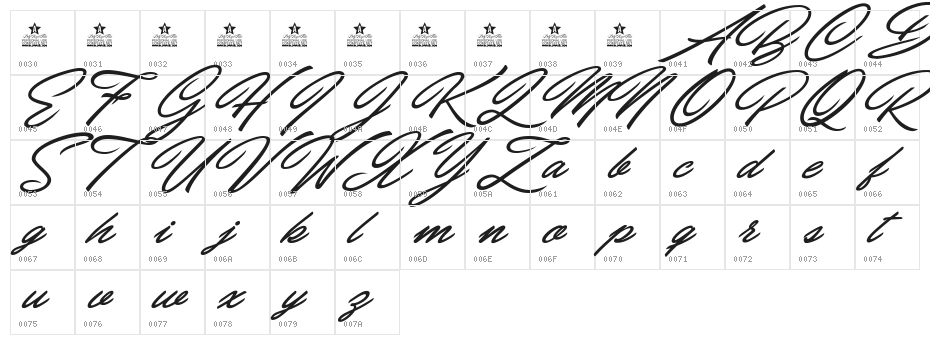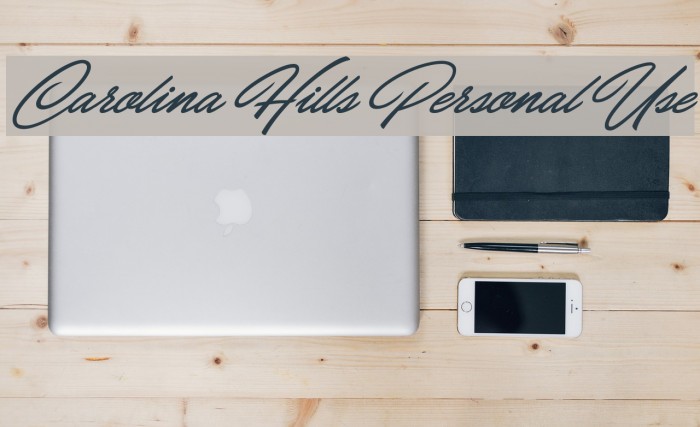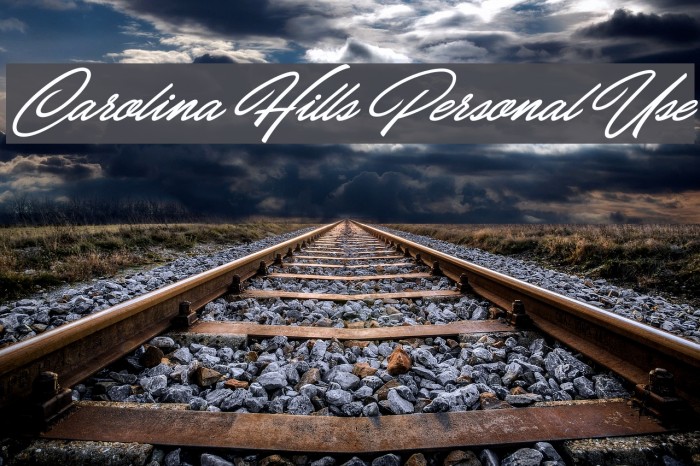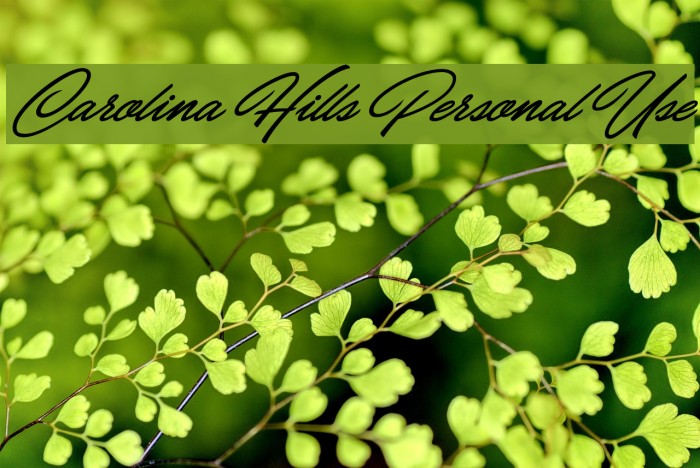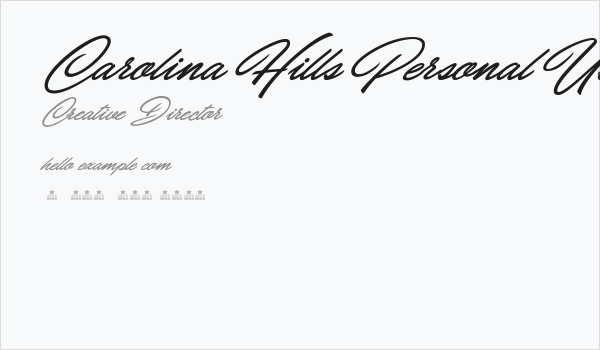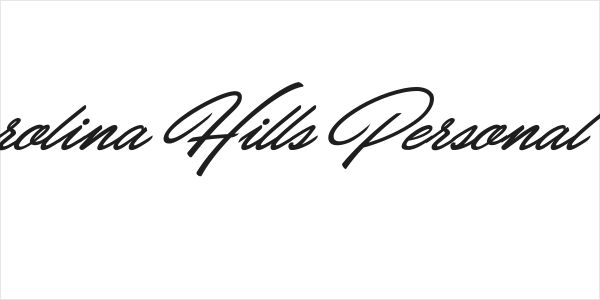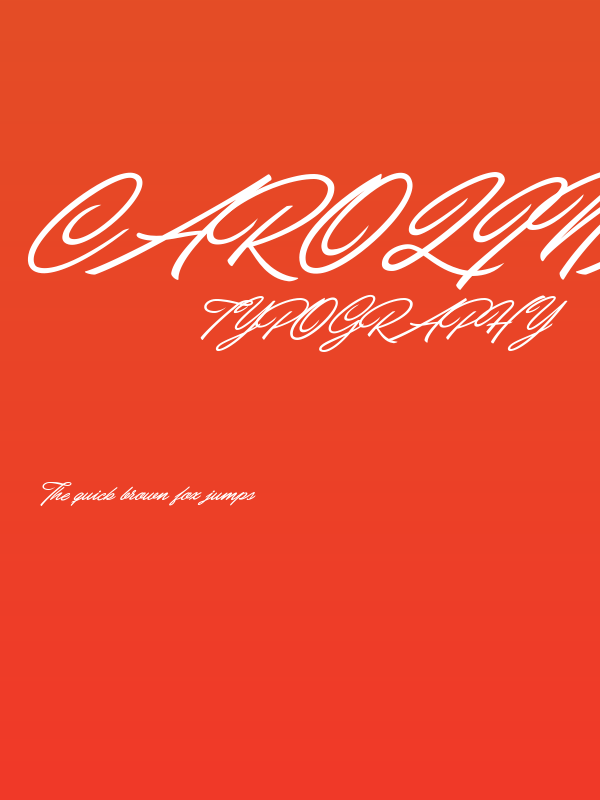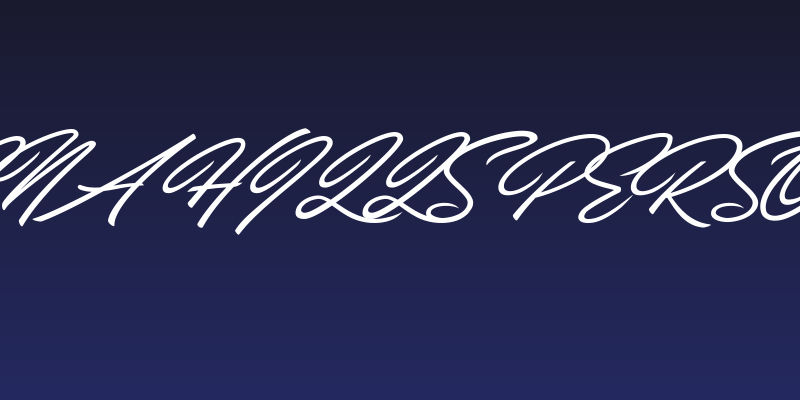
Carolina Hills Personal Use Font
Carolina Hills Personal Use Description
This font features a flowing, cursive style that mimics elegant handwriting. The characters are interconnected, creating a seamless and fluid appearance. The uppercase letters are slightly larger and more embellished, while the lowercase letters maintain a consistent and smooth flow. The strokes are bold and confident, with a slight slant that adds to the dynamic and graceful feel. This font is perfect for adding a personal touch to any design, evoking a sense of sophistication and charm.
| Use Case | Logos, Invitations, Decorative Text |